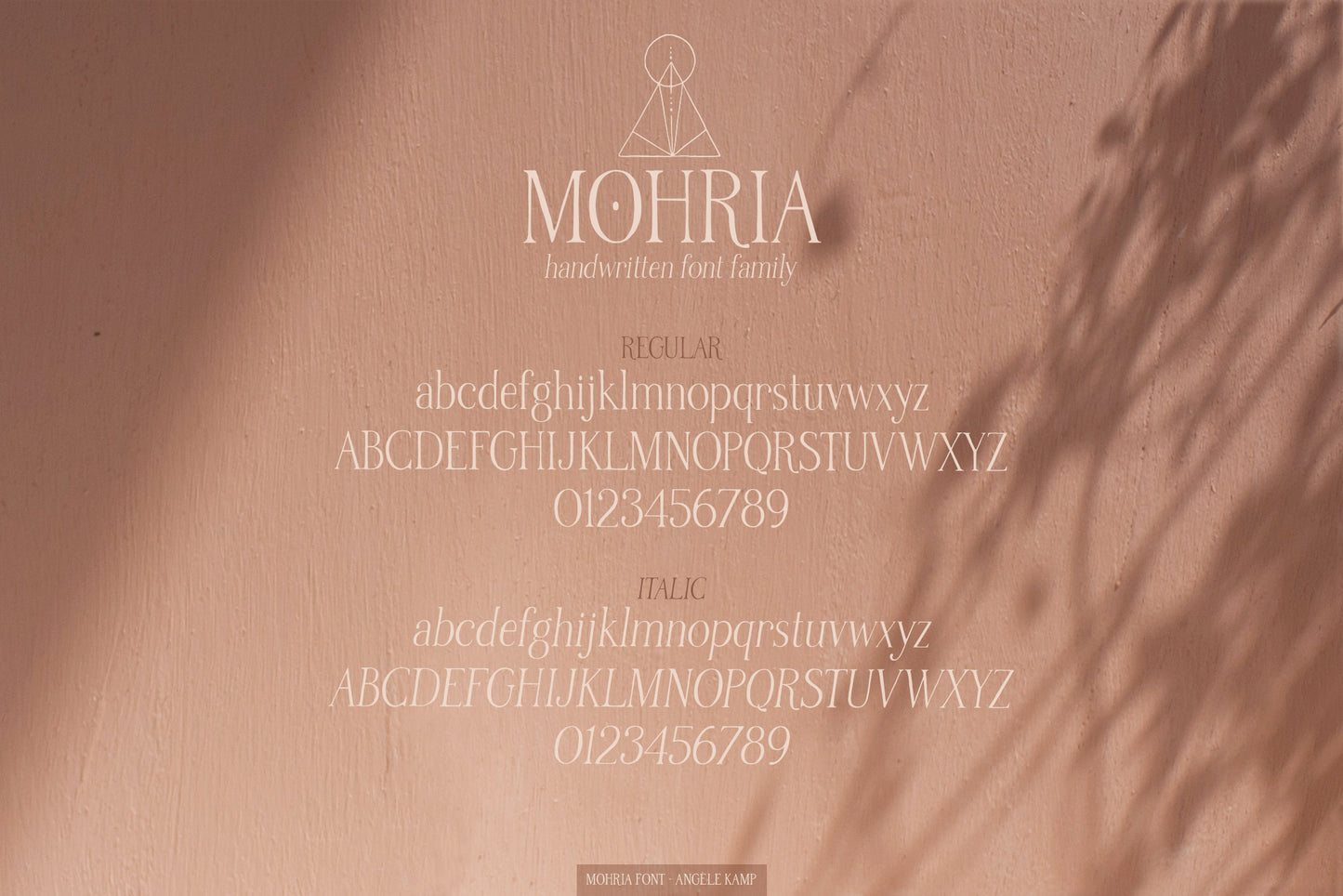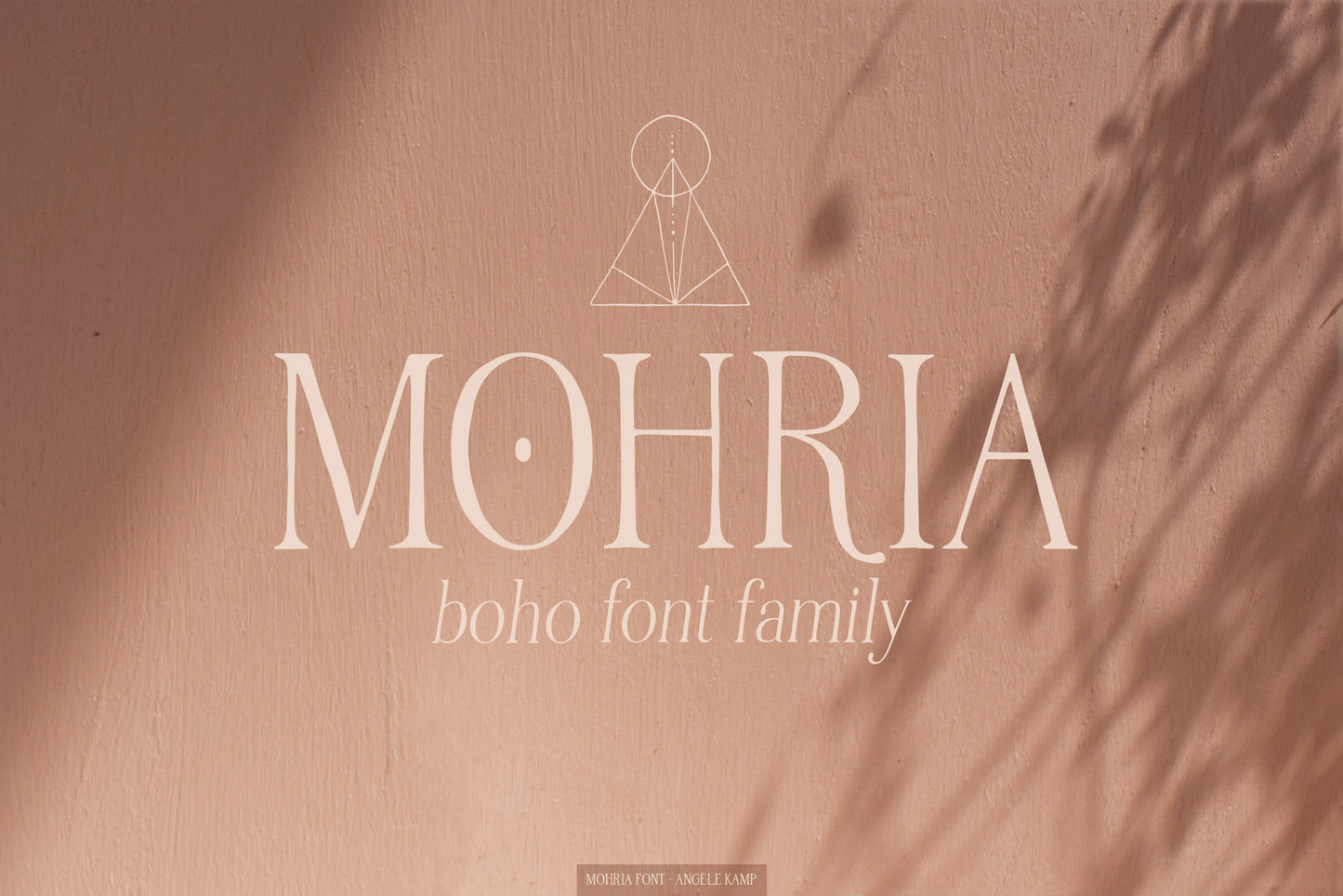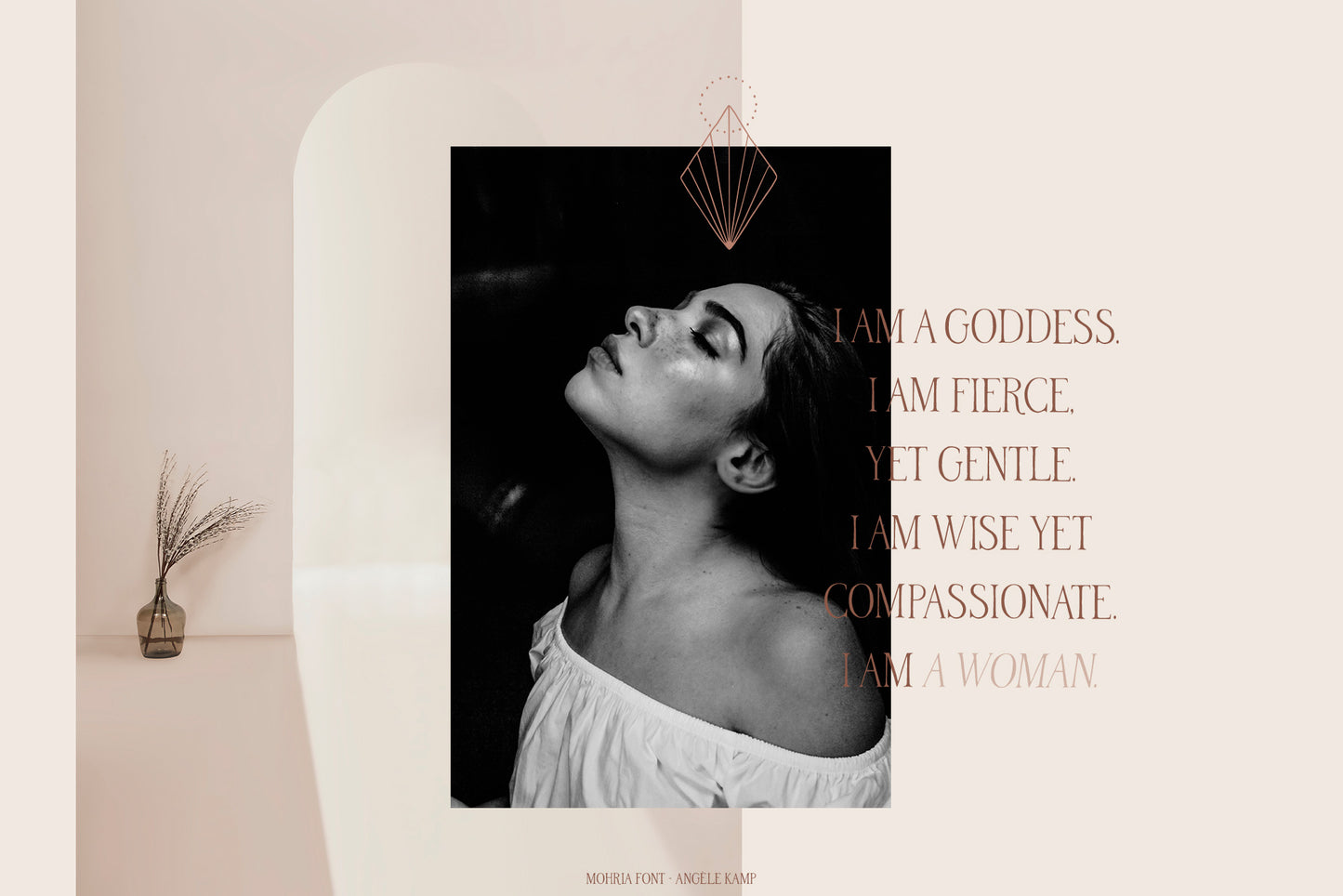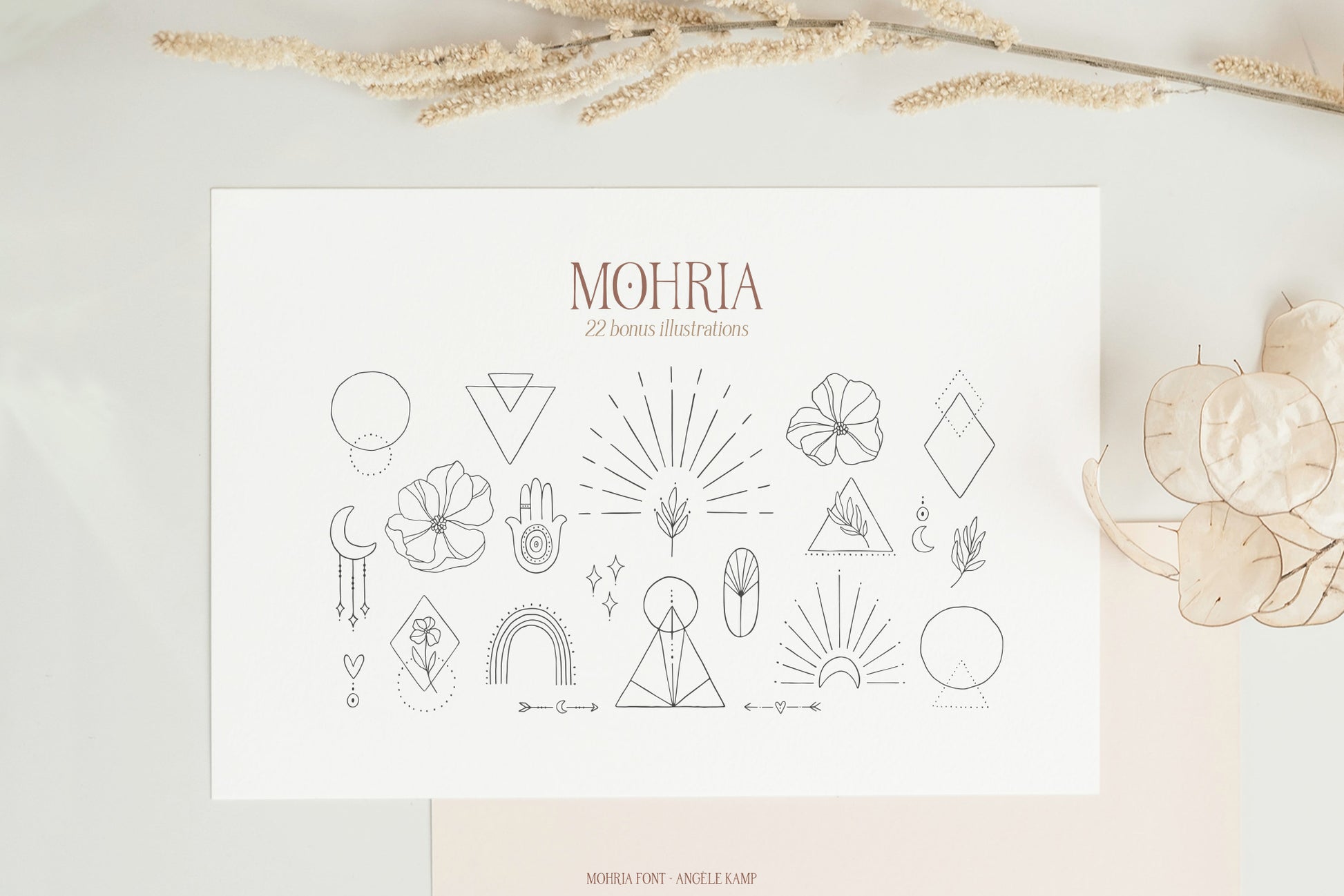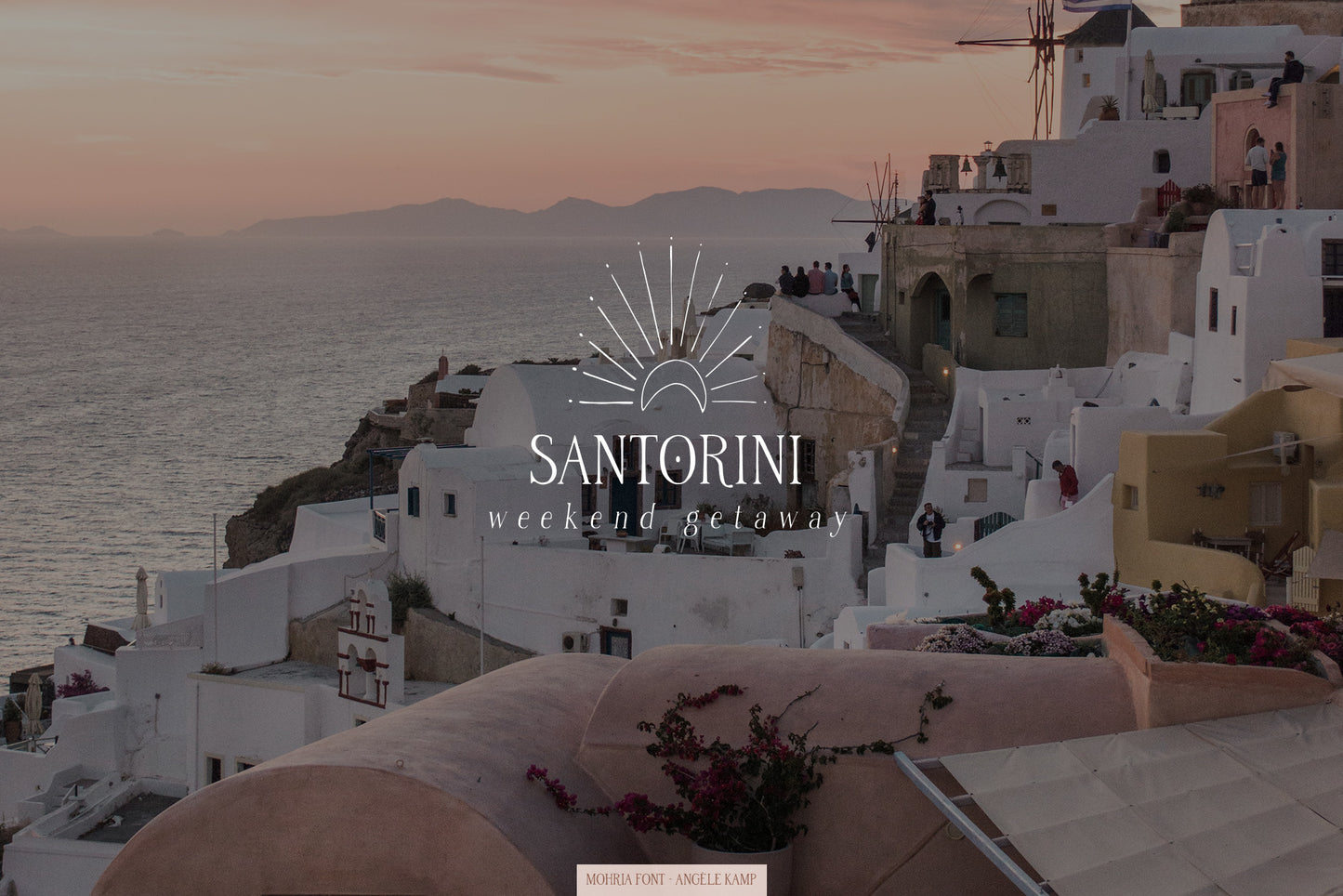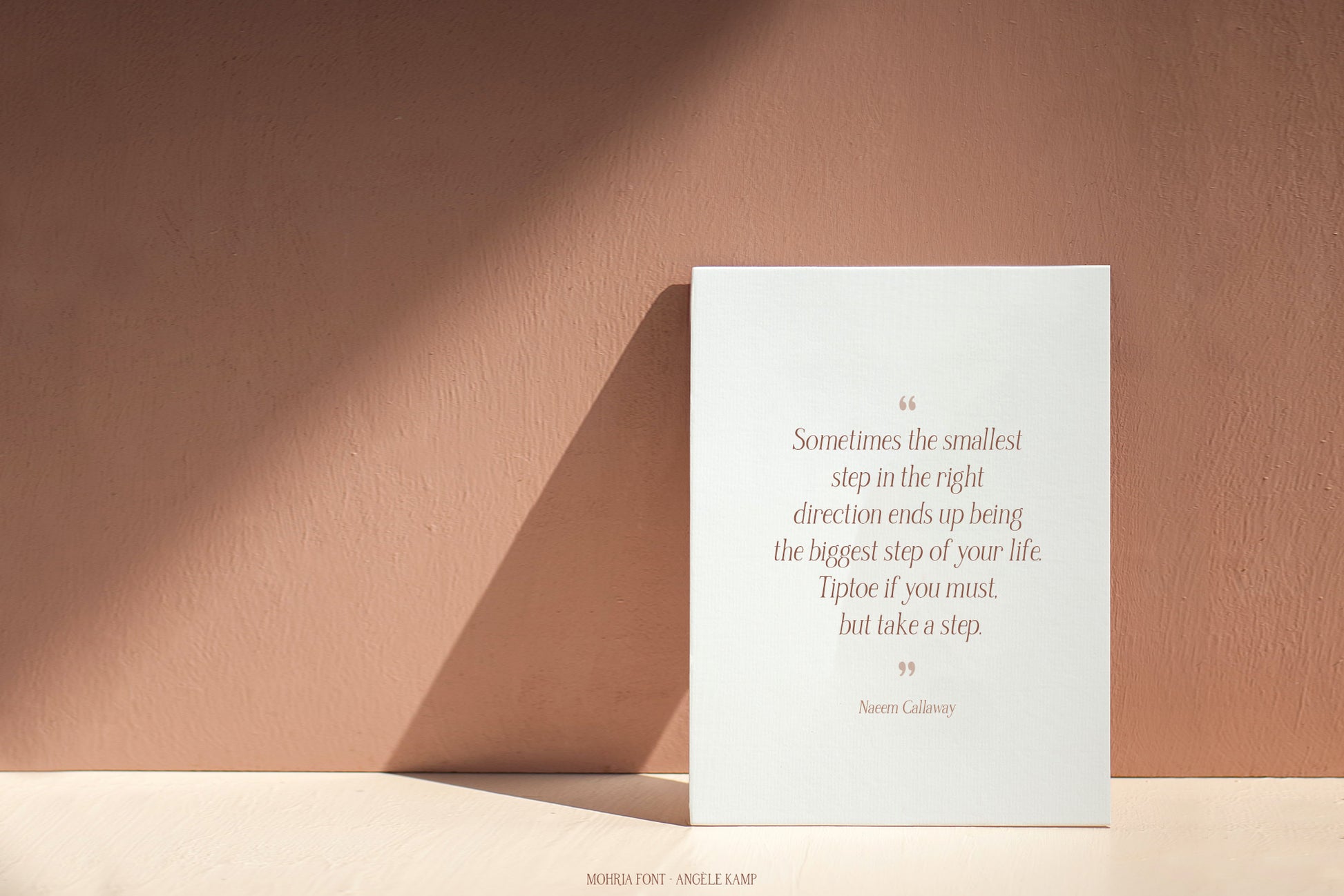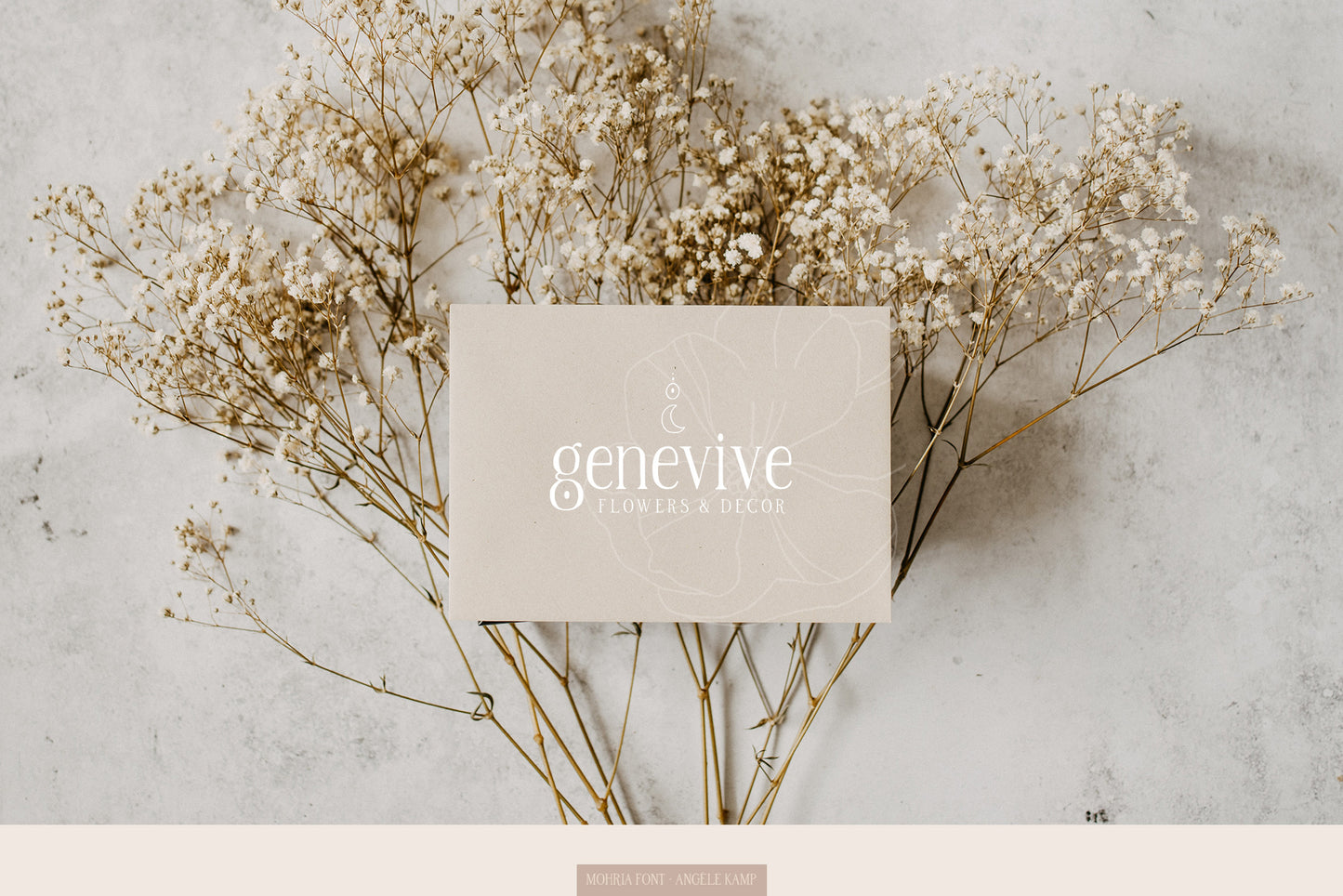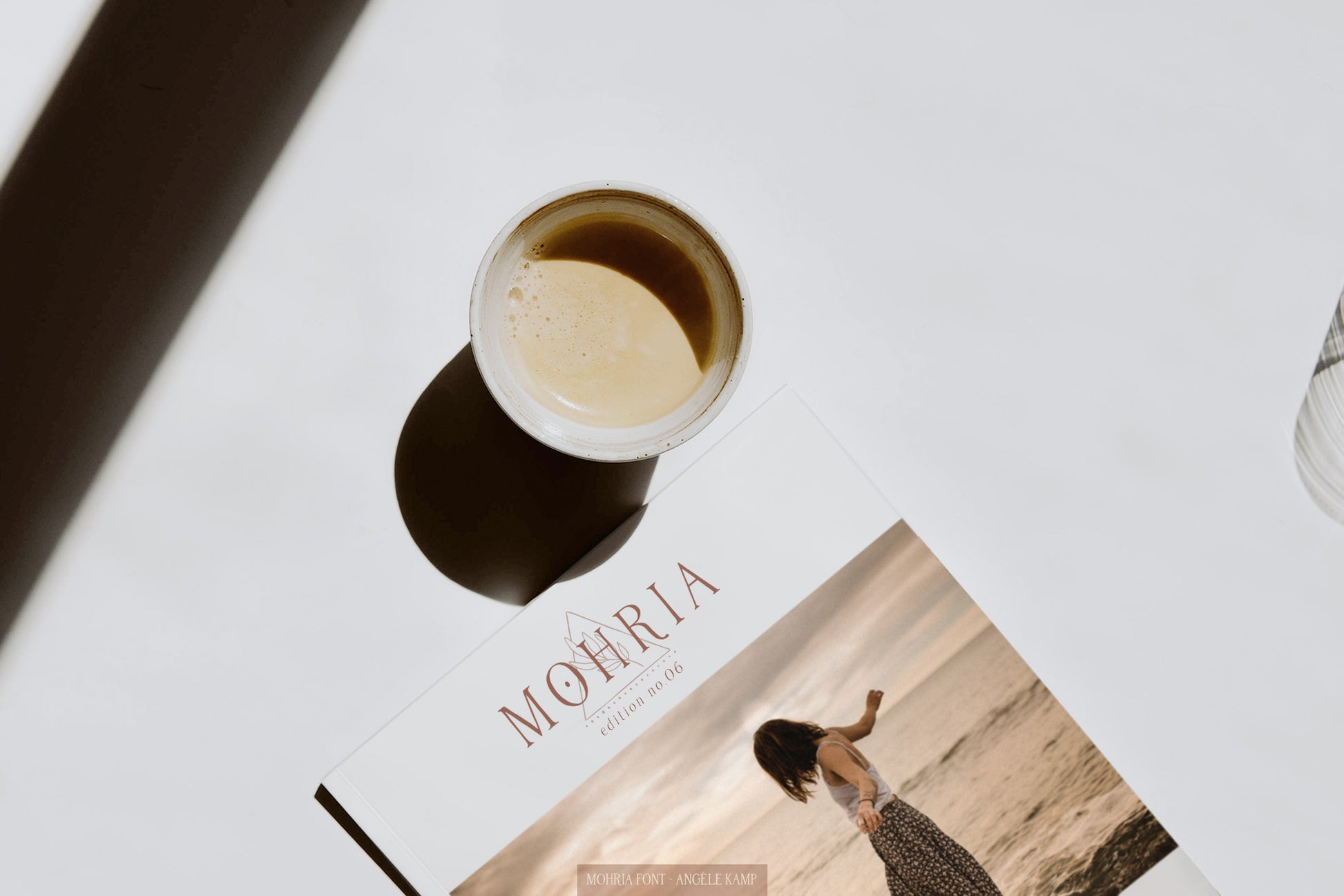
Mohria font family
Mohria is a font family with a modern boho style. This beautiful collection will instantly add flair & style to all of your design projects. As a bonus, you will receive 22 hand-drawn illustrations that complement the fonts perfectly.
This handwritten font family is timeless and can not be missed in your font collection. It will help you to easily create logos, branding, invites, and any other client projects you are working on.